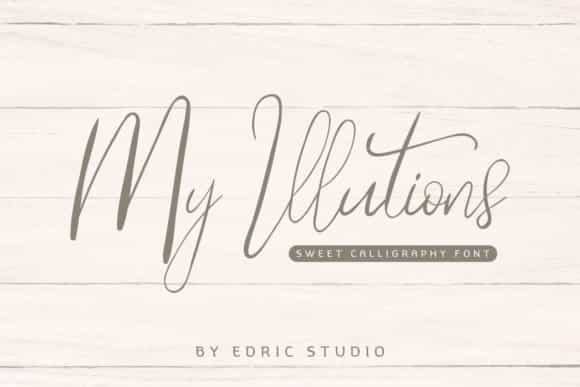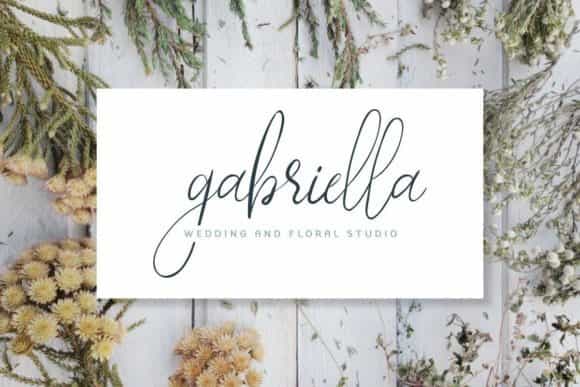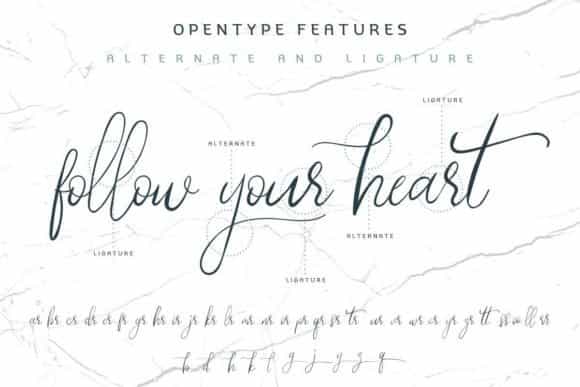
Discover My Illutions Font, part of the Calligraphy collection—a versatile and unique font perfect for adding a personal touch to your projects. Download it for free and enjoy crafting designs with style, from invitations to social media posts. This font is available exclusively for personal use, giving you the freedom to create without limits. Unlock your creativity with My Illutions Font today!
My Illutions Font is designed to be a perfect match for texts, quotes , packaging and branding. This stylish pairing can be applied to all graphics from the logo design to Instagram quotes.